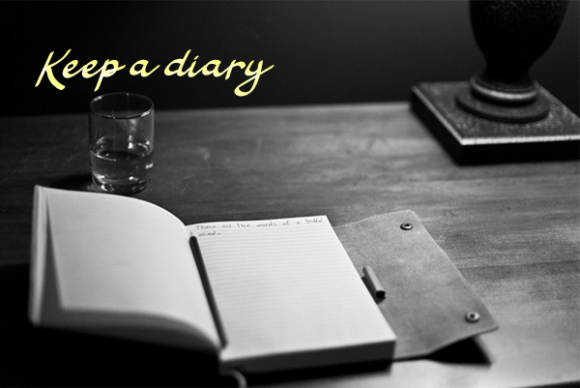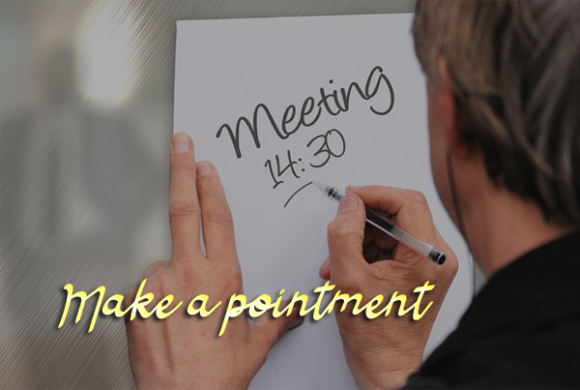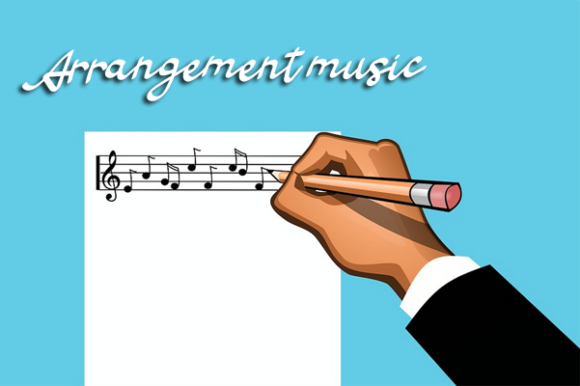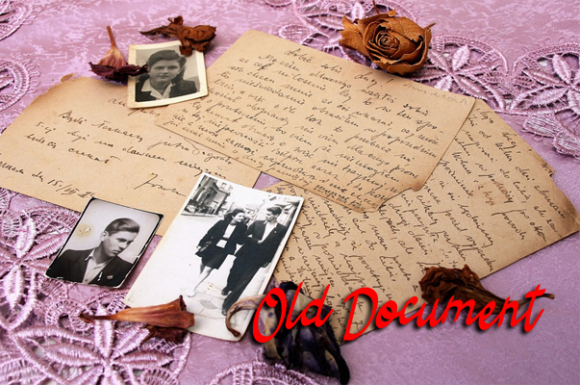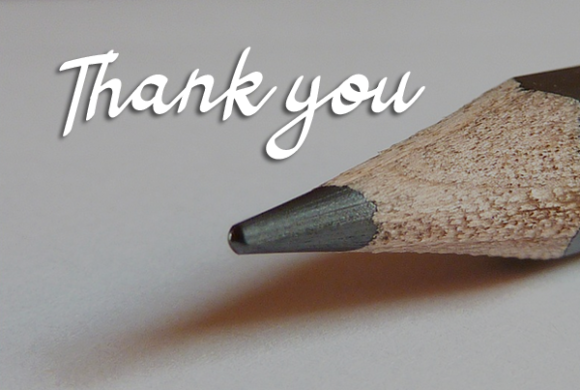
Introducing Hand Written Font: A Delicate and Sweet Calligraphy Typeface
Are you looking for a typeface that can add a touch of elegance and sophistication to your design projects? Look no further than Hand Written Font, a delicate and sweet calligraphy typeface that is sure to impress. With its characters that dance along the baseline, this font is perfect for designers and crafters who want to add a luxury spark to their work.
What is Hand Written Font?
Hand Written Font is a beautiful calligraphy typeface that is designed to mimic the look of hand-written text. It features flowing lines and delicate curves that give it a unique and elegant feel. The font is perfect for a variety of design projects, including wedding invitations, branding materials, and packaging design.
Key Features of Hand Written Font
- Delicate and Sweet Design: Hand Written Font features a delicate and sweet design that is sure to impress. Its characters are designed to dance along the baseline, creating a sense of movement and fluidity.
- Luxury Spark: This font is perfect for designers and crafters who want to add a luxury spark to their work. Its elegant design and flowing lines make it perfect for high-end branding and design projects.
- Versatile: Hand Written Font is a versatile typeface that can be used for a variety of design projects. It’s perfect for wedding invitations, branding materials, packaging design, and more.
- Easily Readable: Despite its delicate design, Hand Written Font is easily readable, making it perfect for body text and headlines.
Why Use Hand Written Font?
There are many reasons why designers and crafters should consider using Hand Written Font in their work. Here are just a few:
- Adds Elegance and Sophistication: Hand Written Font adds a touch of elegance and sophistication to any design project. Its delicate design and flowing lines make it perfect for high-end branding and design projects.
- Creates a Personal Touch: This font creates a personal touch that is hard to achieve with standard typefaces. Its hand-written design makes it perfect for designers and crafters who want to add a personal touch to their work.
- Perfect for Branding: Hand Written Font is perfect for branding materials, including logos, business cards, and letterheads. Its elegant design and flowing lines make it perfect for high-end brands.
Tips for Using Hand Written Font
Here are a few tips for using Hand Written Font in your design projects:
- Use it for Headlines and Titles: Hand Written Font is perfect for headlines and titles. Its delicate design and flowing lines make it perfect for adding a touch of elegance and sophistication to your design projects.
- Pair it with a Standard Typeface: For body text, pair Hand Written Font with a standard typeface to create a beautiful contrast between the two.
- Experiment with Colors and Textures: Hand Written Font looks great in a variety of colors and textures. Experiment with different colors and textures to find the perfect look for your design project.
In conclusion, Hand Written Font is a beautiful calligraphy typeface that is sure to add a touch of elegance and sophistication to any design project. Its delicate design and flowing lines make it perfect for high-end branding and design projects. With its versatility, readability, and luxury spark, Hand Written Font is a must-have for designers and crafters who want to take their work to the next level.
- What is Hand Written Font?
- Hand Written Font is a beautiful calligraphy typeface that is designed to mimic the look of hand-written text.
- Is Hand Written Font readable?
- Yes, Hand Written Font is easily readable, making it perfect for body text and headlines.